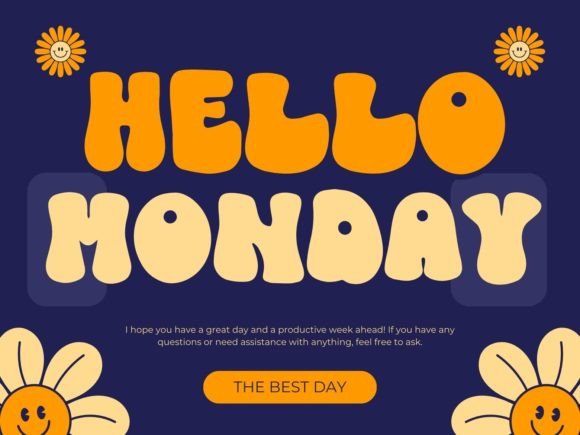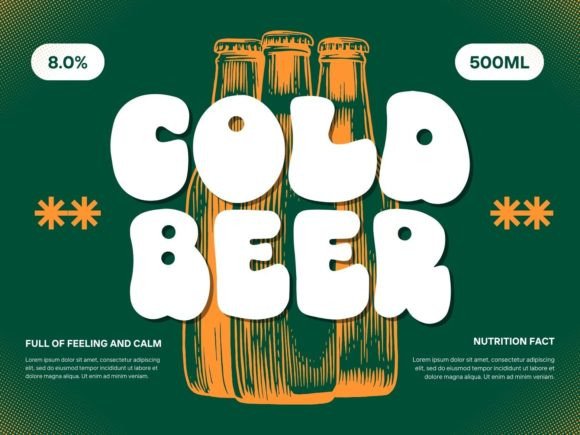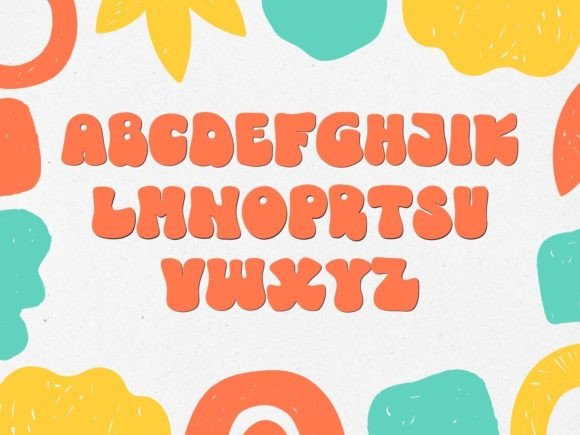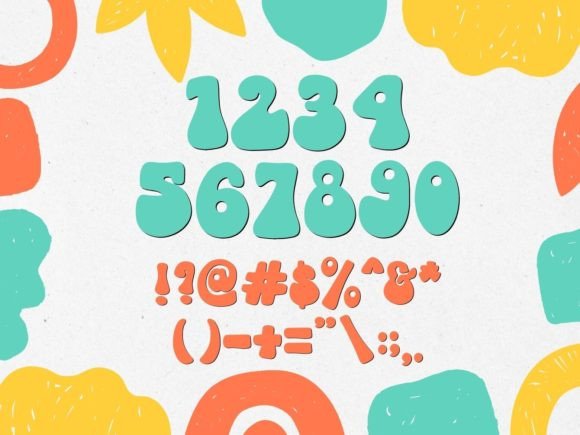
The Unmistakable Charm of Bilie Font: A Designer’s Delight
I still remember the time I was working on a project for a bold and edgy fashion brand. I had to create a poster that would grab attention and make a statement. As I scrolled through my font library, I stumbled upon Bilie Font, and it was love at first sight! ✨ With its thick, powerful strokes and striking letterforms, it was the perfect fit for the project. In this article, I’ll share my experience with Bilie Font, its features, and how to make the most of it in your designs.
An Honest Review of Bilie Font
What I Love About Bilie Font
- 💥 **Impactful and attention-grabbing**: Bilie Font is designed to make a statement, and it does it with style!
- ✅ **Perfect for headlines and titles**: Its bold and confident personality shines through in large text sizes.
- 🎨 **Versatile and modern**: It can be used for a wide range of design projects, from posters to branding and packaging.
- 👍 **Easy to read**: Despite its boldness, Bilie Font remains surprisingly legible, even at smaller sizes.
While Bilie Font is an excellent choice for many projects, there are a few things to keep in mind: 🤔
- ⚠️ **Limited use for body text**: Due to its bold nature, Bilie Font is best suited for headlines and titles, rather than body text.
- ⚠️ **May not be suitable for small text sizes**: While it’s legible, Bilie Font can become a bit too bold at very small text sizes.
The Story Behind Bilie Font
While I couldn’t find any information on the exact origins of Bilie Font, I like to imagine that it was created by a young and ambitious designer who wanted to make a statement in the design world. Perhaps they were inspired by the urban landscape and the bold, geometric shapes that surround us. Whatever the story, Bilie Font is undoubtedly a design gem that deserves attention.
| Font Name | Bilie Font |
| Author | maghrib |
Q: What type of projects is Bilie Font best suited for?
A: Bilie Font is perfect for projects that require a bold and attention-grabbing font, such as posters, headlines, titles, and branding.
Q: Can I use Bilie Font for body text?
A: While Bilie Font is legible, it’s best suited for headlines and titles. For body text, consider using a more traditional font.
Q: Is Bilie Font available in different weights or styles?
A: The original Bilie Font may not have multiple weights or styles, but you can experiment with different font sizes, colors, and effects to achieve a similar look.